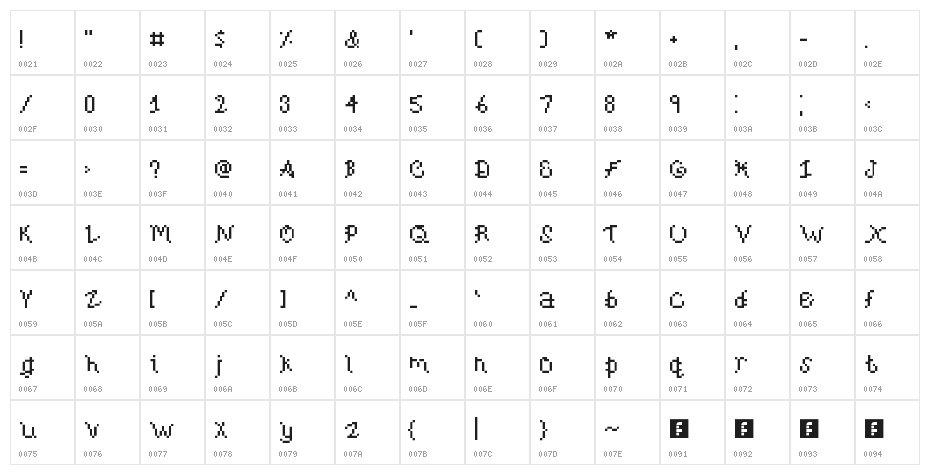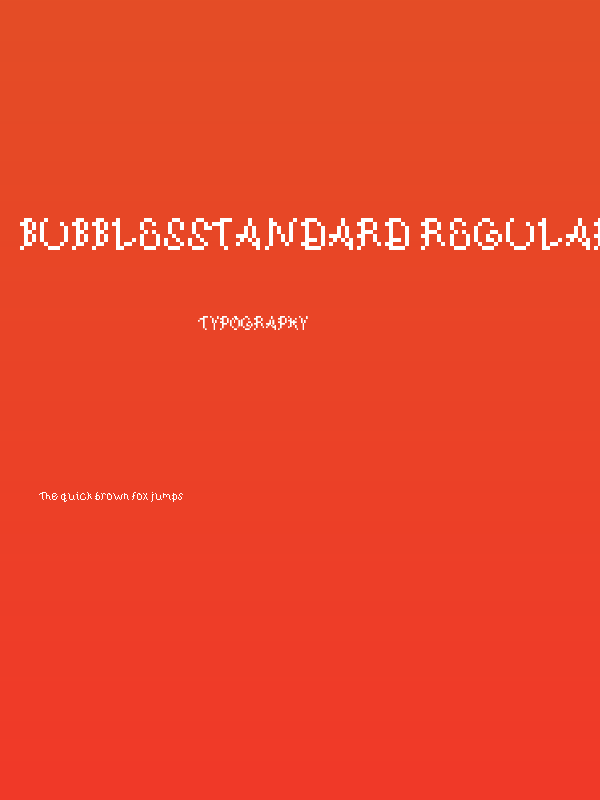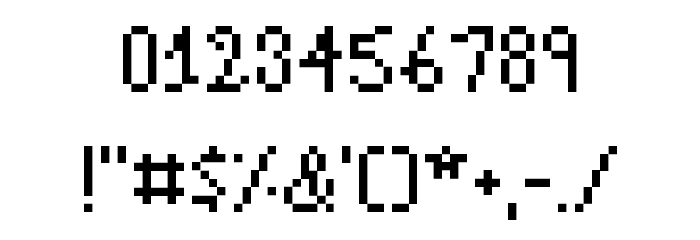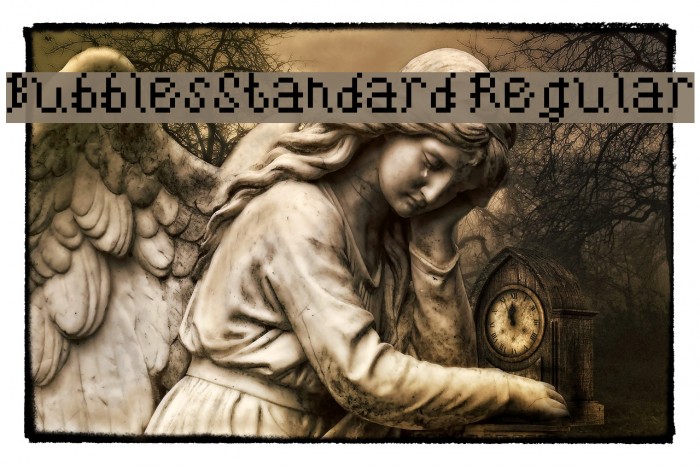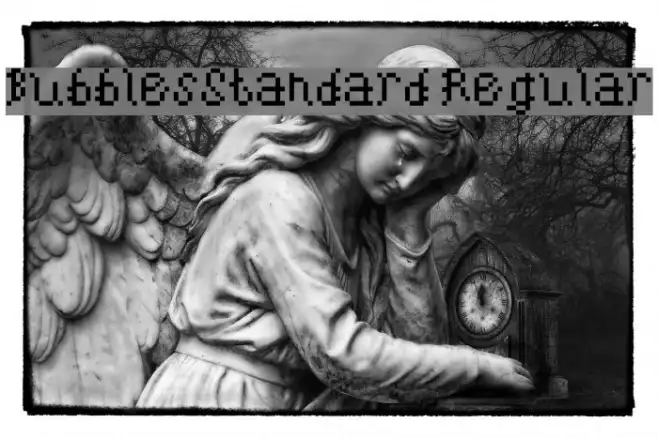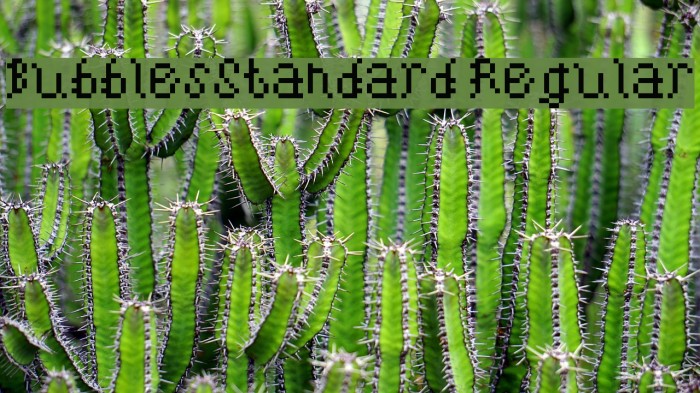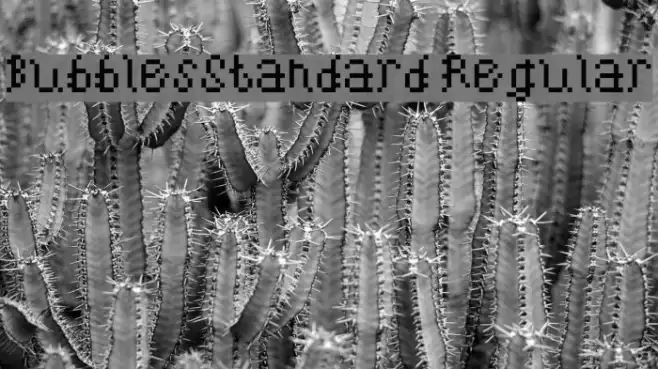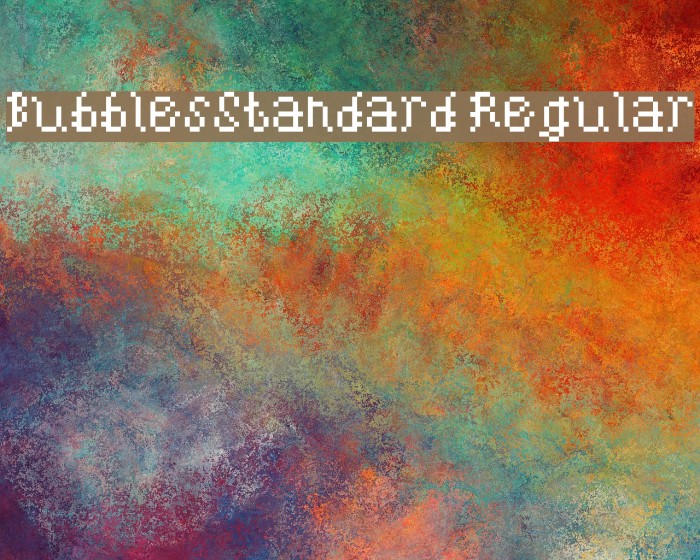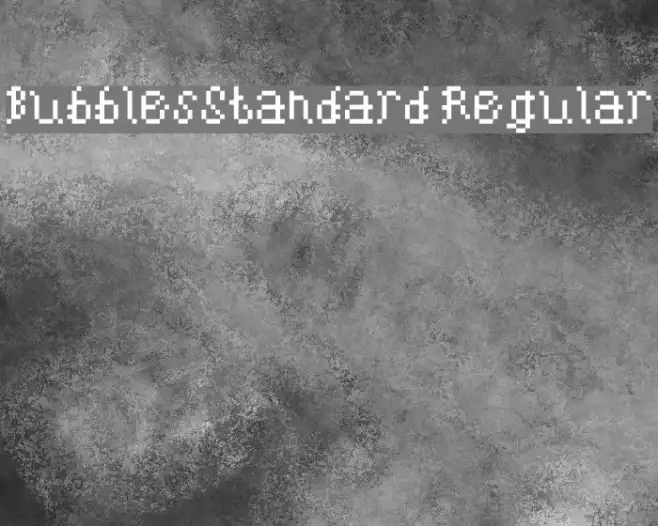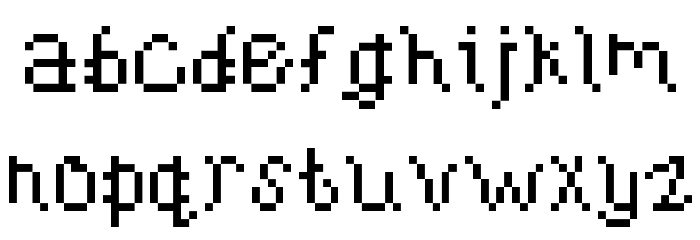
BubblesStandard Regular Font
BubblesStandard Regular Description
This font features a playful, pixelated style reminiscent of early digital graphics. Each character is composed of small, square blocks, giving it a distinctly retro, video game-like appearance. The uniformity in the block size across all characters creates a cohesive look, while the slight variations in character shapes add a touch of whimsy. The font maintains a consistent baseline and cap height, ensuring readability despite its unconventional design. Its unique aesthetic makes it ideal for projects that aim to evoke nostalgia or a sense of fun.
| Overall Style | Retro, Playful |
| Proposed Projects | Ideal for video game designs, retro-themed posters, digital art projects, and playful branding. |